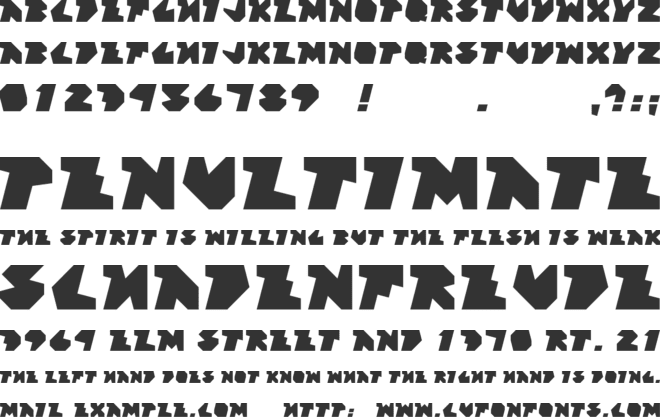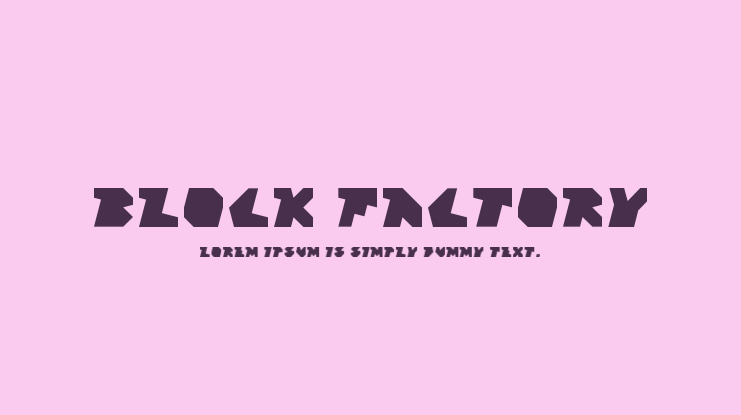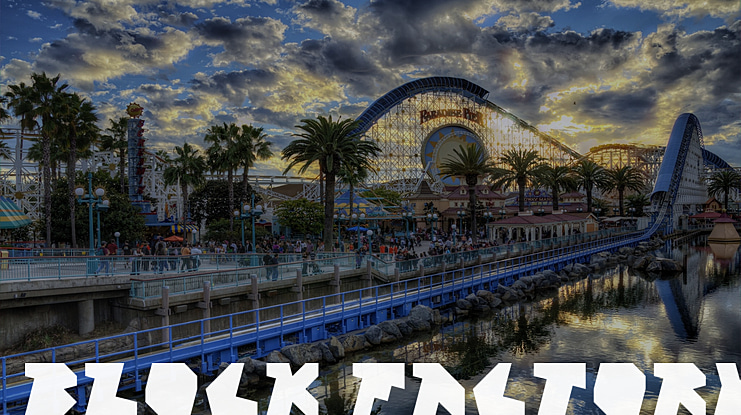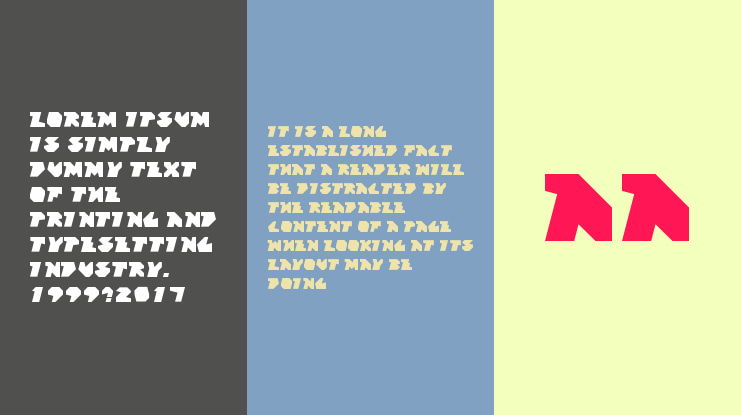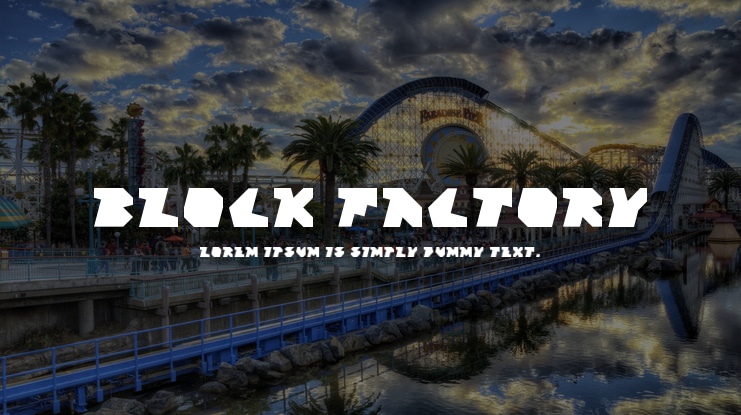
Block Factory Font
Pedro Loredo Arroyo
Typography designed from a square with different and systematic subtractions with certain constants and variables. Enjoy it